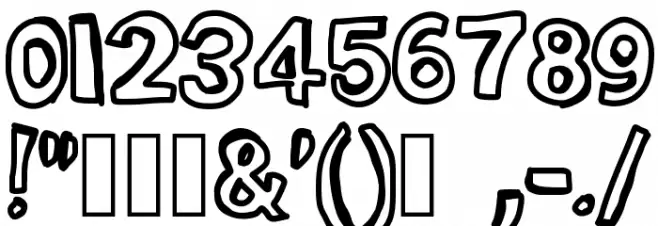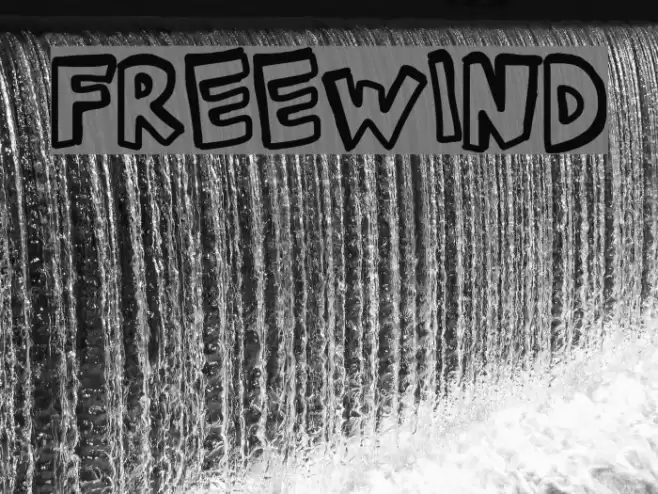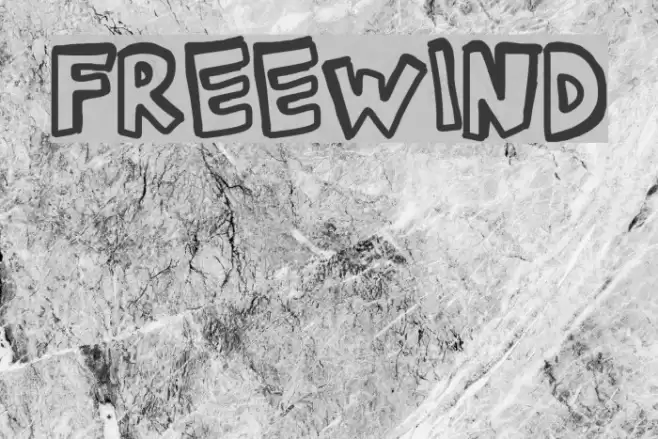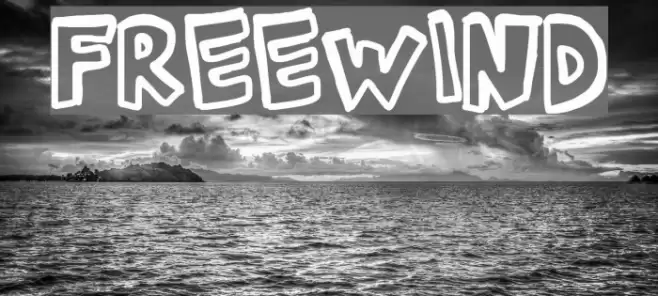
[FREEWIND] Font
[FREEWIND] Description
This playful and bold font features a hand-drawn, cartoonish style with thick outlines and irregular shapes, giving it a lively and energetic appearance. The uppercase and lowercase letters maintain a consistent, whimsical design, with each character slightly varying in width and height, adding to its informal charm. The numbers and special characters follow the same playful aesthetic, making this font ideal for projects that require a fun and engaging look. The overall style is reminiscent of comic book lettering, with a touch of retro flair, making it suitable for a variety of creative applications.
A playful, hand-drawn font with bold outlines and a cartoonish style from Cartoon fonts.
- Proposed Projects: Ideal for children's books, comic strips, playful branding, and party invitations.
- Overall Style: Playful, Cartoonish, Retro